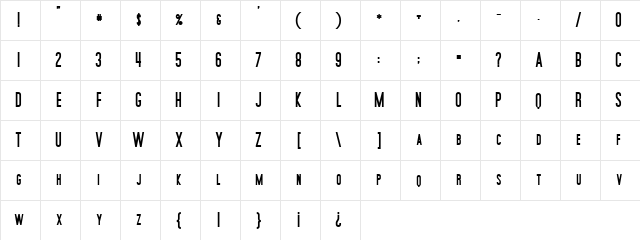
Movie Poster Bold
Design Context for Movie Poster Typeface
Movie Poster offers clean, dependable letterforms without strong stylistic allegiance, making it a practical choice for designers who need flexibility. The heavy weight commands attention and anchors typographic hierarchies.